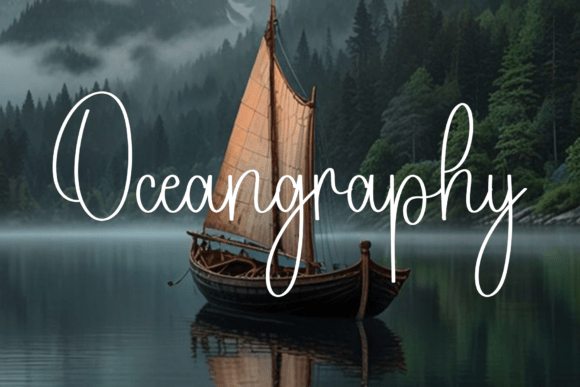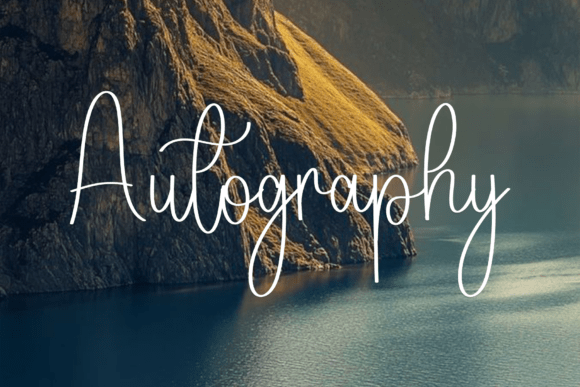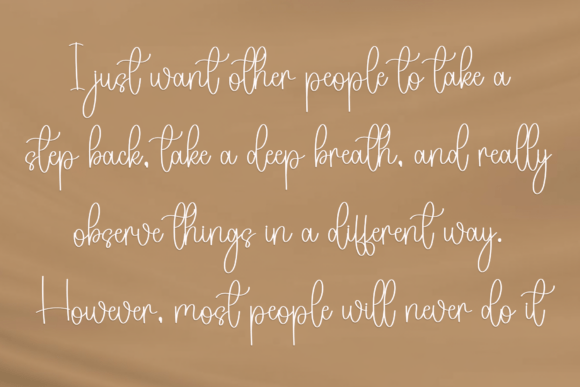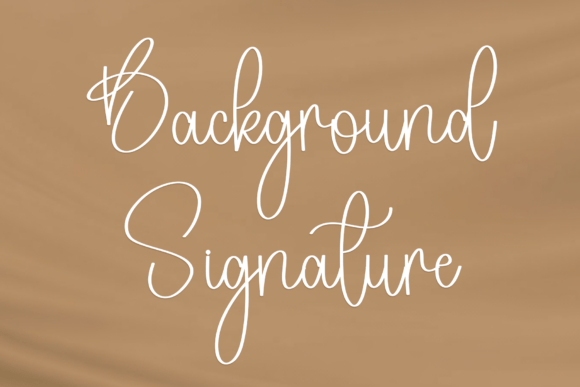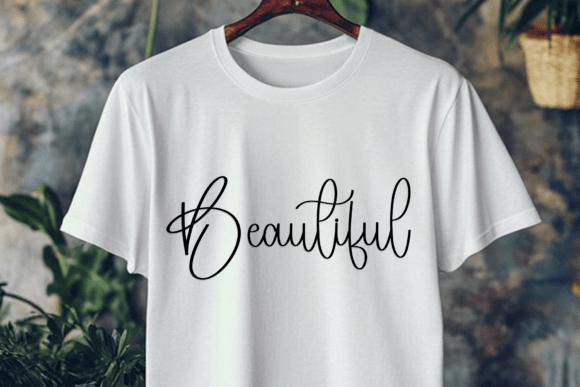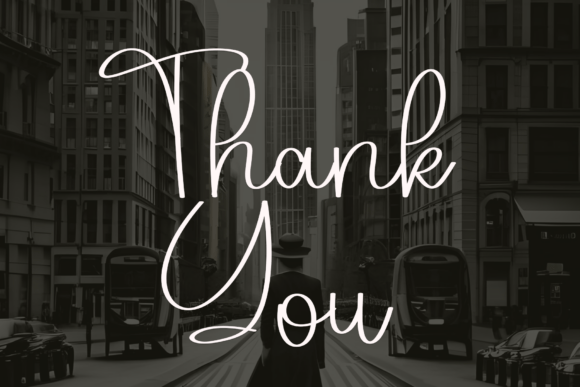
Introducing Artistic Signature: The Elegant Cursive Typeface for Refined Brands
In the world of typography, a signature font can make all the difference in establishing a brand’s identity. For those seeking to elevate their personal brand or business with a touch of sophistication, the Artistic Signature font is an exquisite choice. This elegant cursive typeface is designed to capture the essence of natural ink flow, featuring fluid motions, graceful loops, and artistic swirls that transform every word into a masterpiece.
Unparalleled Elegance and Versatility
The Artistic Signature typeface is specifically crafted for high-end applications, including photography watermarks, luxury boutique logos, bespoke wedding stationery, and more. Its sophisticated design exudes an air of timeless elegance, while maintaining an approachable, human touch. This versatility makes it an ideal choice for designers and crafters looking to add a professional finishing touch to various projects.
Perfect for Creative Professionals and Businesses
Whether you’re a photographer, graphic designer, or small business owner, the Artistic Signature font can help you establish a refined brand image. Use it to:
- Add a professional signature to digital newsletters and email communications
- Elevate your business cards and creative portfolios with a touch of elegance
- Create stunning watermarks for your photography or artwork
- Design bespoke wedding stationery, including invitations and thank-you cards
Pairing and Design Tips
The Artistic Signature font pairs beautifully with minimalist sans-serif fonts, allowing the script’s movement to serve as a stunning visual centerpiece for high-fashion layouts and intimate branding projects. When using this elegant typeface, consider the following design tips:
- Balance the script’s fluidity with a clean, modern sans-serif font to create visual contrast
- Experiment with different colors and textures to enhance the font’s artistic feel
- Use the Artistic Signature font as a focal point, allowing its elegant swirls and loops to draw attention
Why Choose the Artistic Signature Font?
In a world where typography plays a crucial role in brand identity, the Artistic Signature font offers a unique combination of style, sophistication, and approachability. By choosing this elegant cursive typeface, you’ll be able to:
- Establish a refined brand image that stands out from the competition
- Add a touch of elegance and sophistication to your designs
- Create a lasting impression on your audience with a truly unique font
The Artistic Signature font is an exquisite choice for designers and crafters seeking to elevate their personal brand or business with a touch of sophistication. With its elegant cursive design, fluid motions, and artistic swirls, this typeface is perfect for high-end applications, including photography watermarks, luxury boutique logos, and bespoke wedding stationery. By incorporating the Artistic Signature font into your designs, you’ll be able to establish a refined brand image that exudes timeless elegance and approachability.